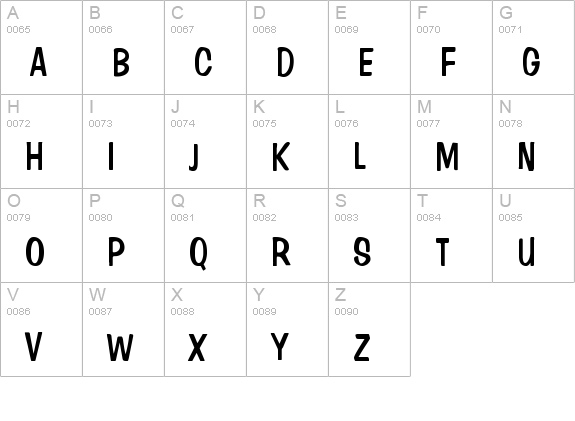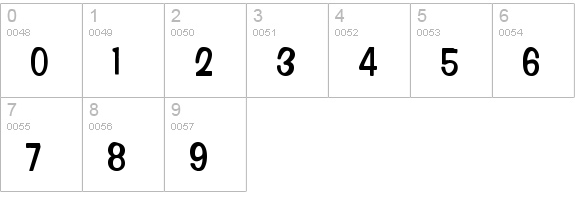
Impressed Cn font is an elegant and stylish typeface that will leave you impressed with its unique design. This font exudes sophistication and charm, making it perfect for a wide range of design projects. With its clean lines and carefully crafted curves, Impressed Cn font is sure to catch the eye of any reader. Whether you're creating a logo, designing a website, or working on a print project, this font will add a touch of class to your work. What makes Impressed Cn font even more impressive is that it is free to download at FontsMarket.com. This means that you can enjoy the beauty and versatility of this font without having to spend a dime. It's a fantastic opportunity to enhance your creative projects without breaking the bank. Impressed Cn font is available in a variety of weights and styles, allowing you to find the perfect fit for your project. Whether you prefer a bold and impactful look or a subtle and elegant touch, this font has got you covered. Its versatility ensures that it can be used in various contexts, from headings and titles to body text and captions. Don't miss out on the opportunity to enhance your designs with the Impressed Cn font. Download it for free at FontsMarket.com and let its beauty and sophistication elevate your projects to new heights.